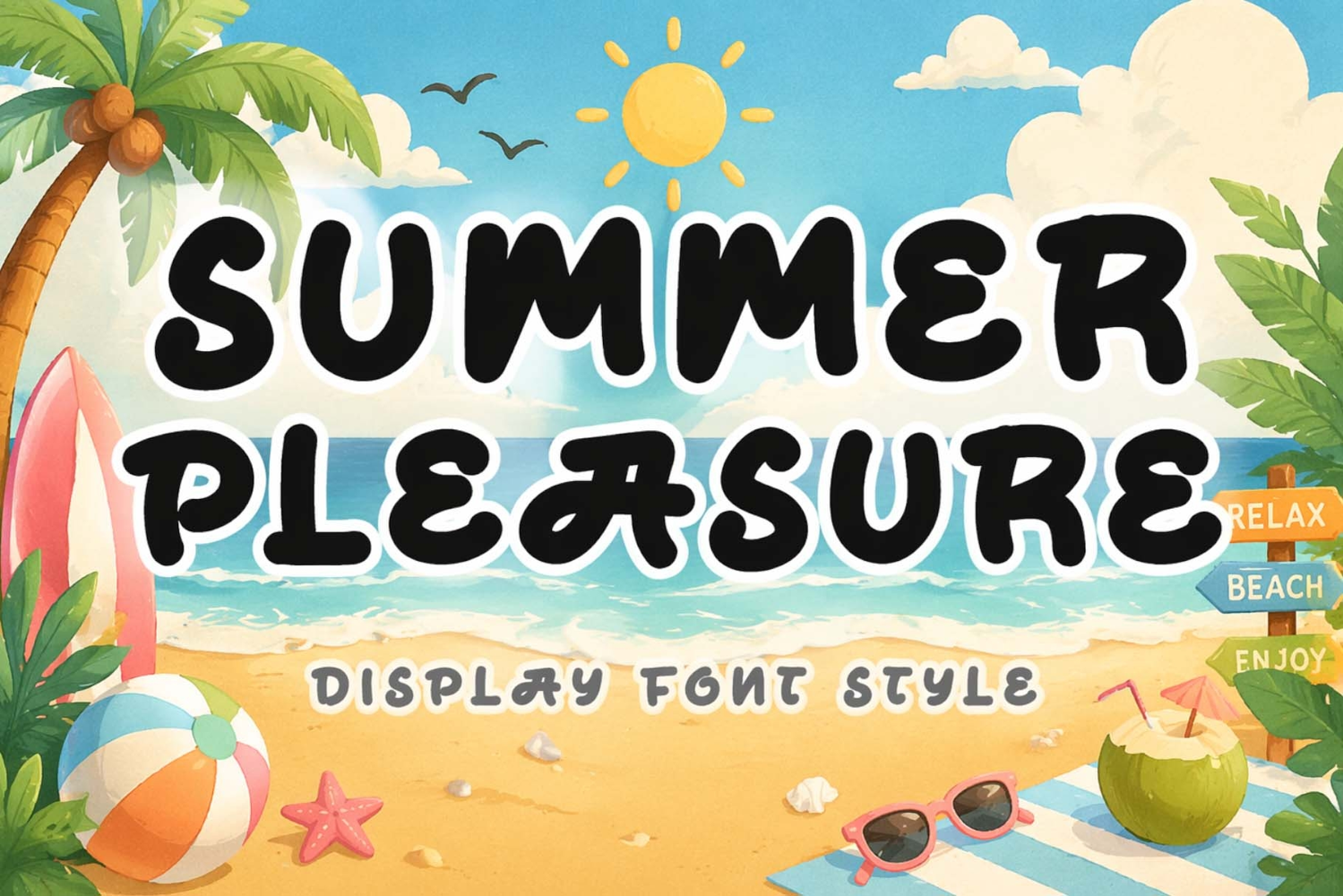
Summer Pleasure
“Summer Pleasure” is a fun display font. It features uppercase and lowercase letters, numbers, punctuation, and multilingual support. It’s perfect for action movie titles, Halloween, Christmas, Easter, spring and summer, banners, branding, stickers, logos, patriotic text, back to school text, business branding, screen printing, tshirt designs, and more.
Summer Pleasure